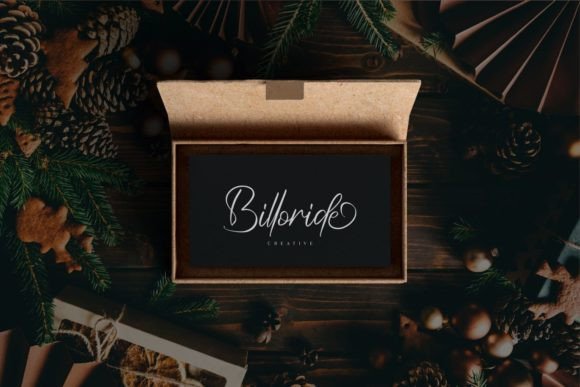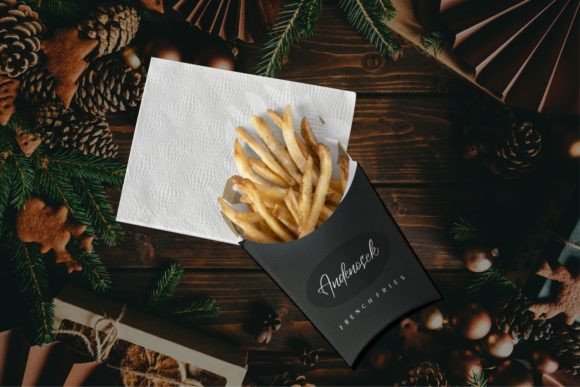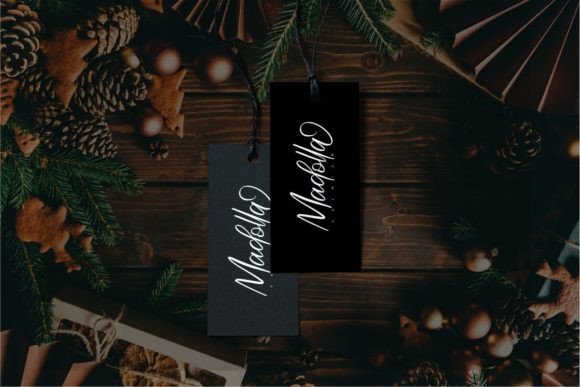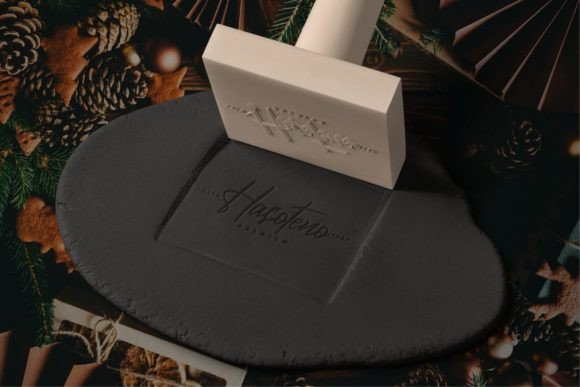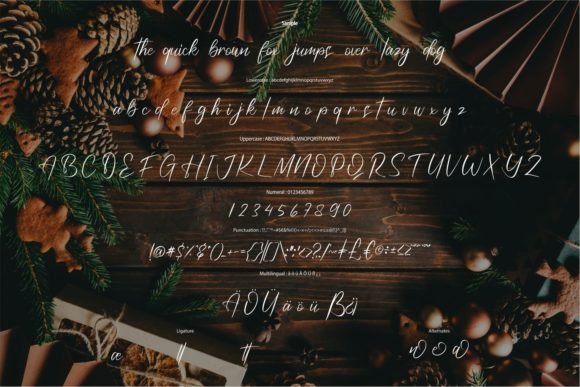
Introducing Gothellon Font: Elevate Your Designs with Elegance and Sophistication
Are you a designer or crafter looking for a font that exudes class, elegance, and modernity? Look no further than Gothellon Font. This stunning script font is perfect for creating beautiful and refined designs that will leave a lasting impression. In this article, we’ll dive into the world of Gothellon Font and explore its features, uses, and benefits.
What is Gothellon Font?
Gothellon Font is a beautiful and refined script font that boasts a classy, elegant, and modern look. Its sophisticated design makes it an ideal choice for a wide range of applications, including logos, branding, invitations, stationery, wedding designs, social media posts, and much more. Whether you’re a professional designer or a crafty DIY enthusiast, Gothellon Font is sure to elevate your designs to the next level.
Key Features of Gothellon Font
So, what sets Gothellon Font apart from other fonts? Here are some of its key features:
- Elegant and Refined Design: Gothellon Font features a beautiful, cursive script design that’s perfect for creating sophisticated and elegant designs.
- Classy and Modern Look: This font boasts a classy and modern look that’s sure to impress. Its clean lines and flowing curves make it perfect for designs that require a touch of sophistication.
- Versatile: Gothellon Font is incredibly versatile and can be used for a wide range of applications, from logos and branding to invitations and social media posts.
- Easy to Read: Despite its elegant design, Gothellon Font is easy to read, making it perfect for body text and other applications where readability is key.
Uses of Gothellon Font
Gothellon Font is an incredibly versatile font that can be used for a wide range of applications. Here are some ideas to get you started:
- Logos and Branding: Create a stunning logo or brand identity with Gothellon Font. Its elegant design makes it perfect for businesses that want to convey sophistication and class.
- Invitations and Stationery: Gothellon Font is perfect for creating beautiful invitations, stationery, and other paper goods. Its elegant design makes it ideal for weddings, parties, and other special occasions.
- Wedding Designs: Create stunning wedding designs with Gothellon Font, including wedding invitations, programs, and more.
- Social Media Posts: Elevate your social media posts with Gothellon Font. Its modern design makes it perfect for creating eye-catching graphics and posts.
Benefits of Using Gothellon Font
So, why should you choose Gothellon Font for your next design project? Here are some benefits of using this stunning font:
- Stand Out from the Crowd: Gothellon Font is a unique and elegant font that’s sure to make your designs stand out from the crowd.
- Save Time: With Gothellon Font, you can create professional-looking designs in no time. Its easy-to-read design and elegant curves make it perfect for creating beautiful designs quickly and easily.
- Increase Your Professionalism: Gothellon Font is a professional-grade font that’s perfect for businesses and designers who want to convey sophistication and class.
In conclusion, Gothellon Font is a beautiful and refined script font that’s perfect for designers and crafters who want to create elegant and sophisticated designs. Its versatile design makes it ideal for a wide range of applications, from logos and branding to invitations and social media posts. With its easy-to-read design and elegant curves, Gothellon Font is sure to elevate your designs to the next level. So why wait? Download Gothellon Font today and start creating stunning designs that will leave a lasting impression.